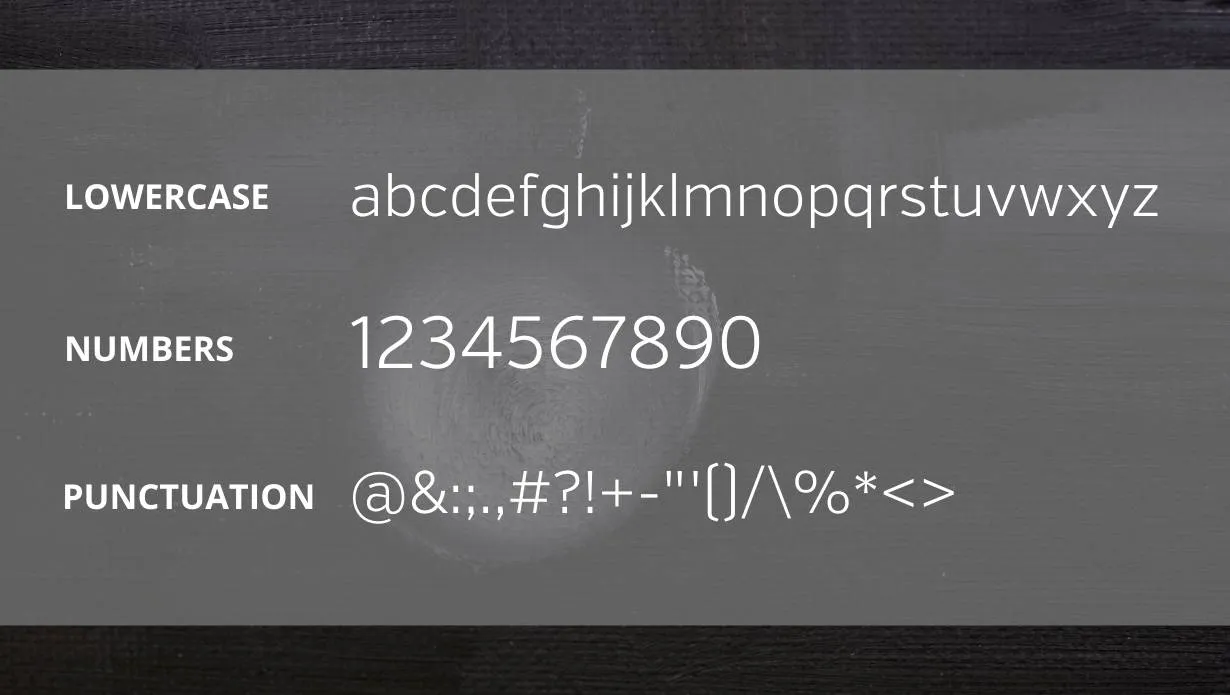
Verb Font is a typeface designed specifically for creating text emphasizing the action of This font. It comes in two weights, regular and bold, each with its own set of glyphs to make your font really stand out!